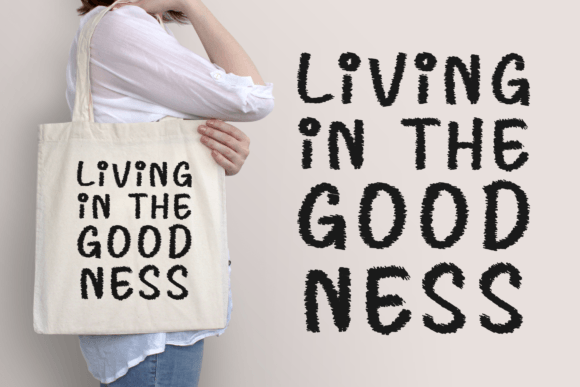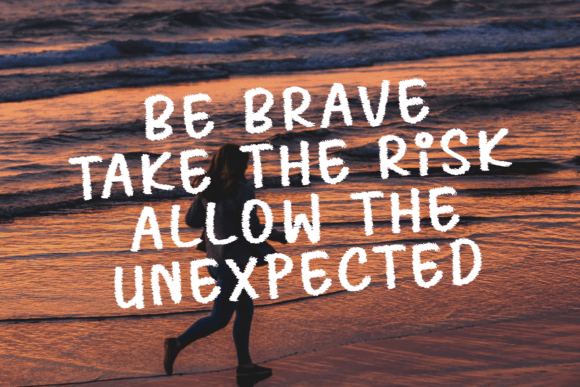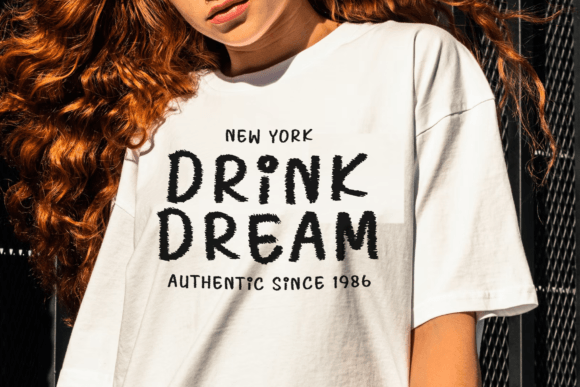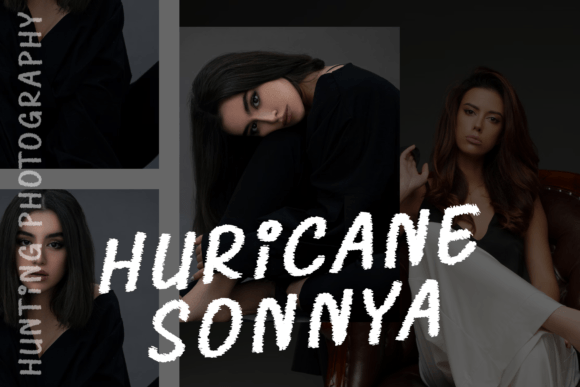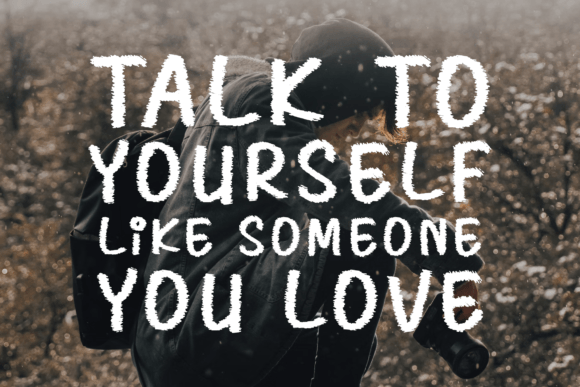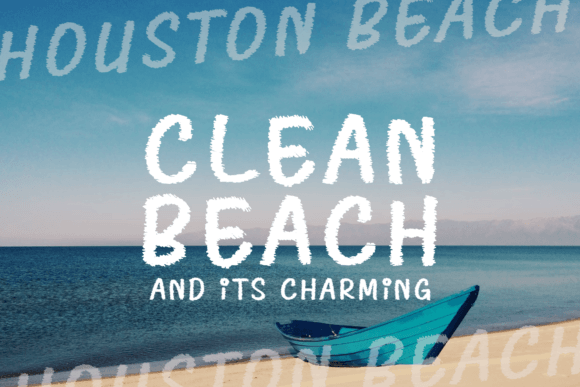
Introducing Grimesun Catalyst: The Quirky Display Font for Creative Projects
Are you tired of using the same old fonts for your design projects? Look no further than Grimesun Catalyst, a unique and quirky display font that’s perfect for adding a touch of personality to your creations. In this article, we’ll explore the features and benefits of Grimesun Catalyst, and show you how it can elevate your designs to the next level.
What is Grimesun Catalyst?
Grimesun Catalyst is a display font designed to add a dash of quirkiness to your projects. With its bold and eye-catching design, it’s perfect for making a statement. The font is suitable for a wide range of projects, including logos, branding projects, homeware designs, product packaging, mugs, quotes, posters, shopping bags, t-shirts, book covers, name cards, invitation cards, greeting cards, labels, photography, watermarks, and special events.
Key Features of Grimesun Catalyst
- Unique and Quirky Design: Grimesun Catalyst boasts a one-of-a-kind design that’s sure to grab attention. Its quirky style sets it apart from more traditional fonts, making it perfect for designers who want to add a touch of personality to their work.
- Highly Versatile: Whether you’re working on a logo, a poster, or a product label, Grimesun Catalyst is the perfect choice. Its versatility makes it suitable for a wide range of projects, from creative designs to commercial applications.
- Easy to Read: Despite its quirky design, Grimesun Catalyst is surprisingly easy to read. This makes it perfect for use in body text, headlines, and titles.
- Scalable: Grimesun Catalyst is designed to look great at any size. Whether you’re working on a small label or a large billboard, the font will remain clear and legible.
Benefits of Using Grimesun Catalyst
So why choose Grimesun Catalyst for your design projects? Here are just a few benefits of using this amazing font:
- Adds Personality to Your Designs: Grimesun Catalyst is the perfect way to add a touch of personality to your designs. Its quirky style will help your projects stand out from the crowd and grab attention.
- Increases Brand Recognition: By using a unique font like Grimesun Catalyst, you can create a distinctive brand identity that sets you apart from your competitors.
- Perfect for Creative Projects: Whether you’re a designer, crafter, or artist, Grimesun Catalyst is the perfect choice for your creative projects. Its quirky style will add a touch of whimsy to your work and make it more engaging.
How to Use Grimesun Catalyst
Here are a few tips for getting the most out of Grimesun Catalyst:
- Experiment with Different Sizes: Grimesun Catalyst looks great at any size, so don’t be afraid to experiment with different sizes and styles.
- Pair it with Other Fonts: Grimesun Catalyst can be paired with other fonts to create a unique and interesting design. Try pairing it with a simple sans-serif font for a bold and eye-catching look.
- Use it for Headlines and Titles: Grimesun Catalyst is perfect for use in headlines and titles. Its quirky style will add a touch of personality to your designs and grab attention.
Grimesun Catalyst is a quirky display font that’s perfect for adding a touch of personality to your design projects. Its unique and eye-catching design makes it suitable for a wide range of projects, from logos and branding to homeware designs and product packaging. With its highly versatile design, ease of use, and scalability, Grimesun Catalyst is the perfect choice for designers and crafters who want to create unique and engaging designs.